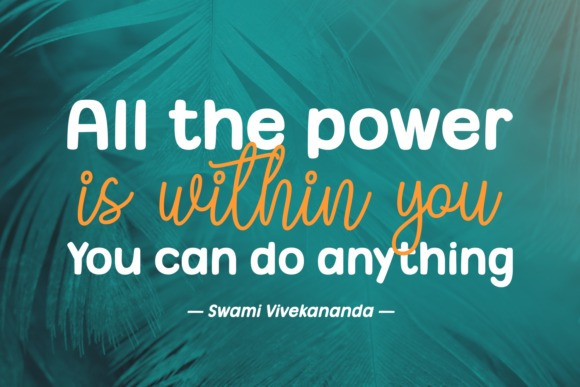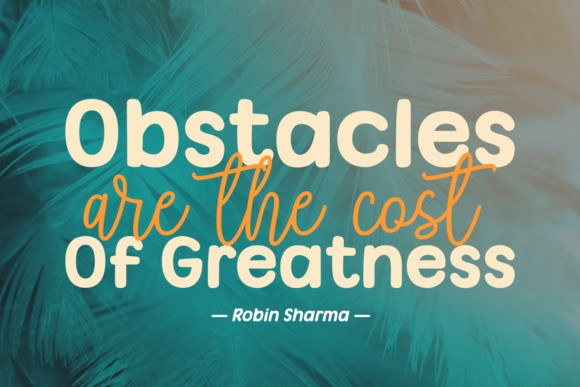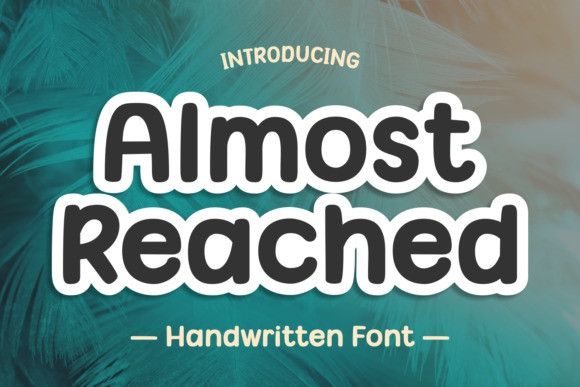
Almost Reached Font
Almost Reached Font is a cute and whimsical display font. It embodies playfulness and authenticity and is the perfect choice for any children activity or school project.